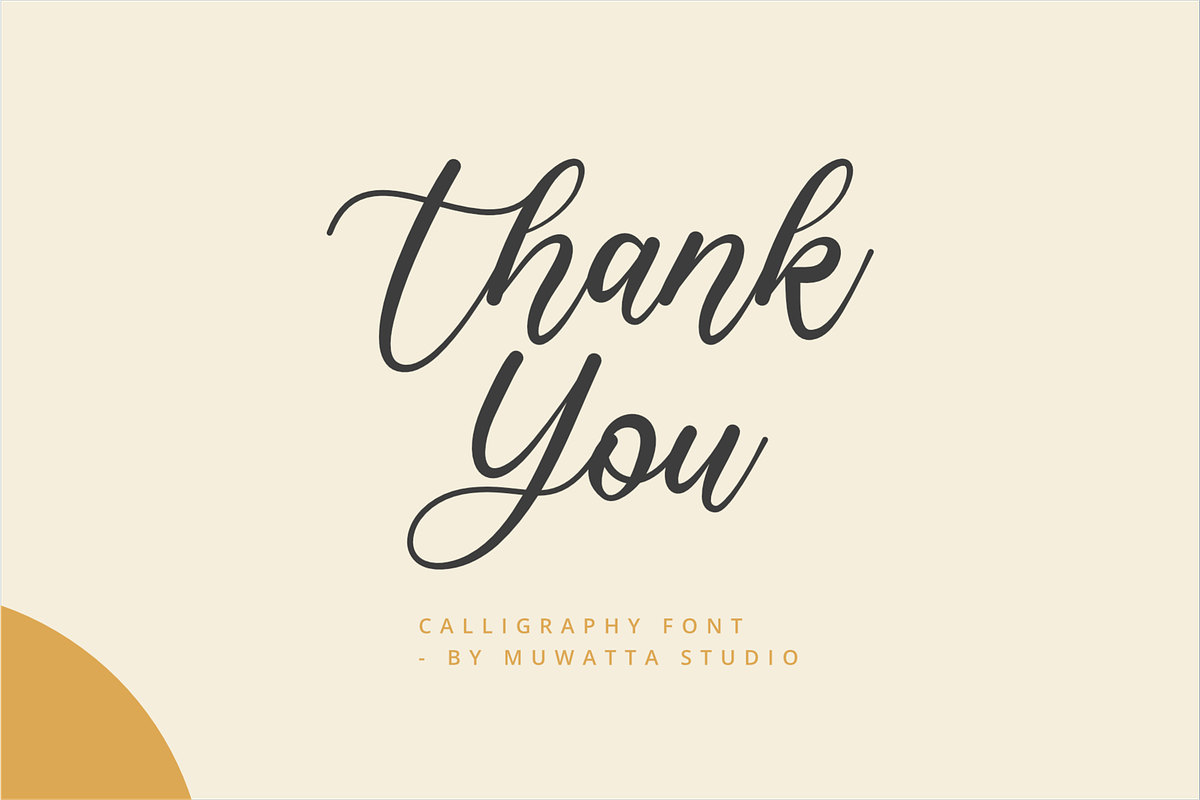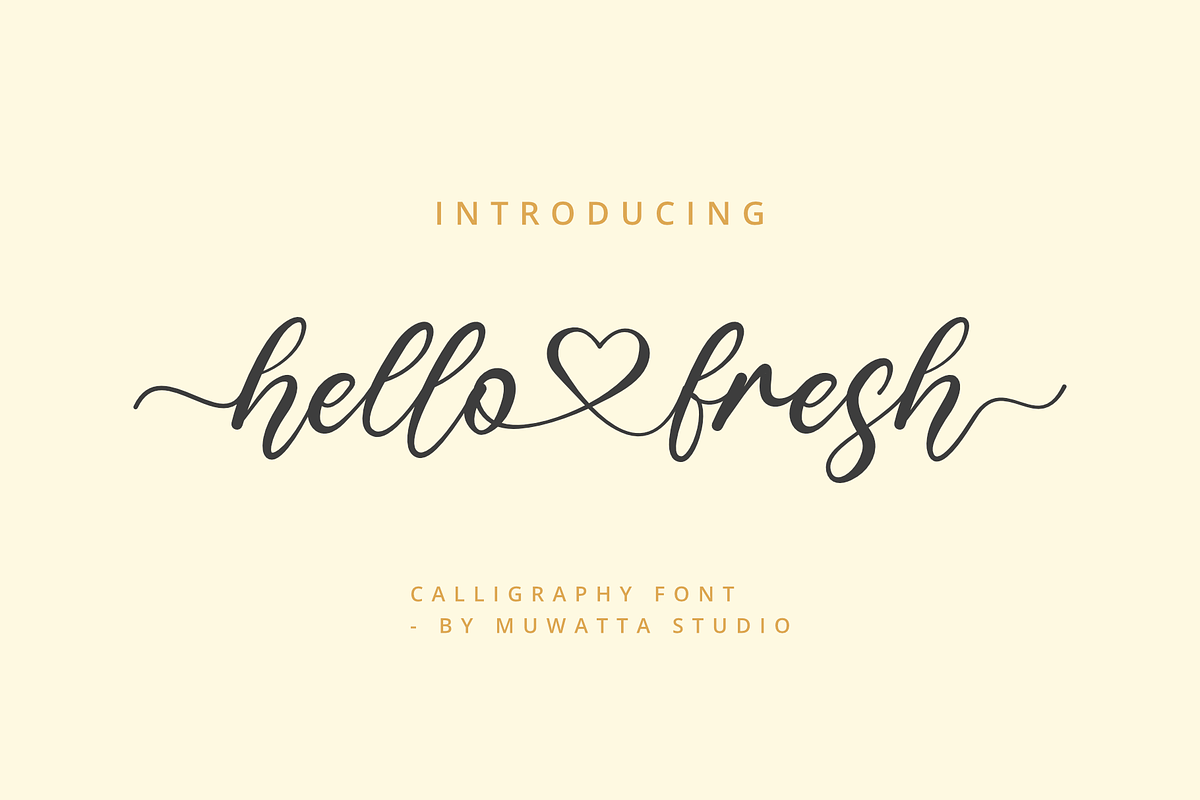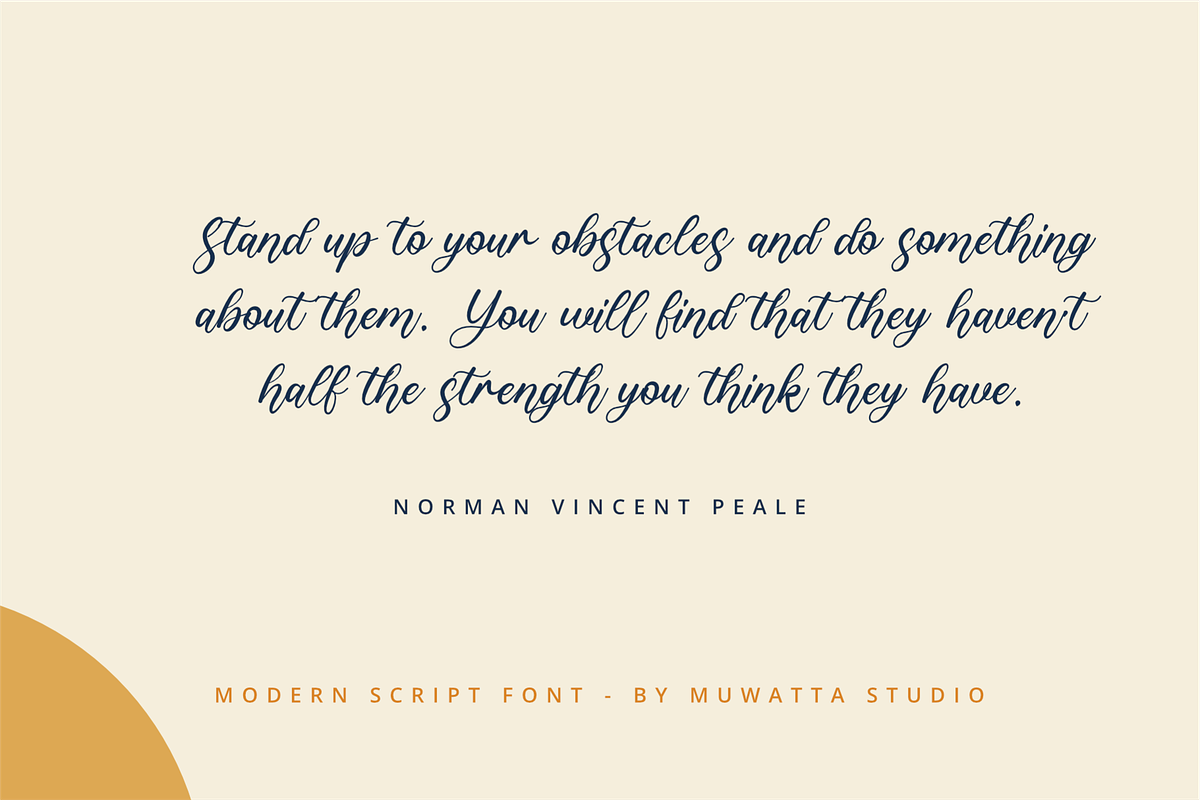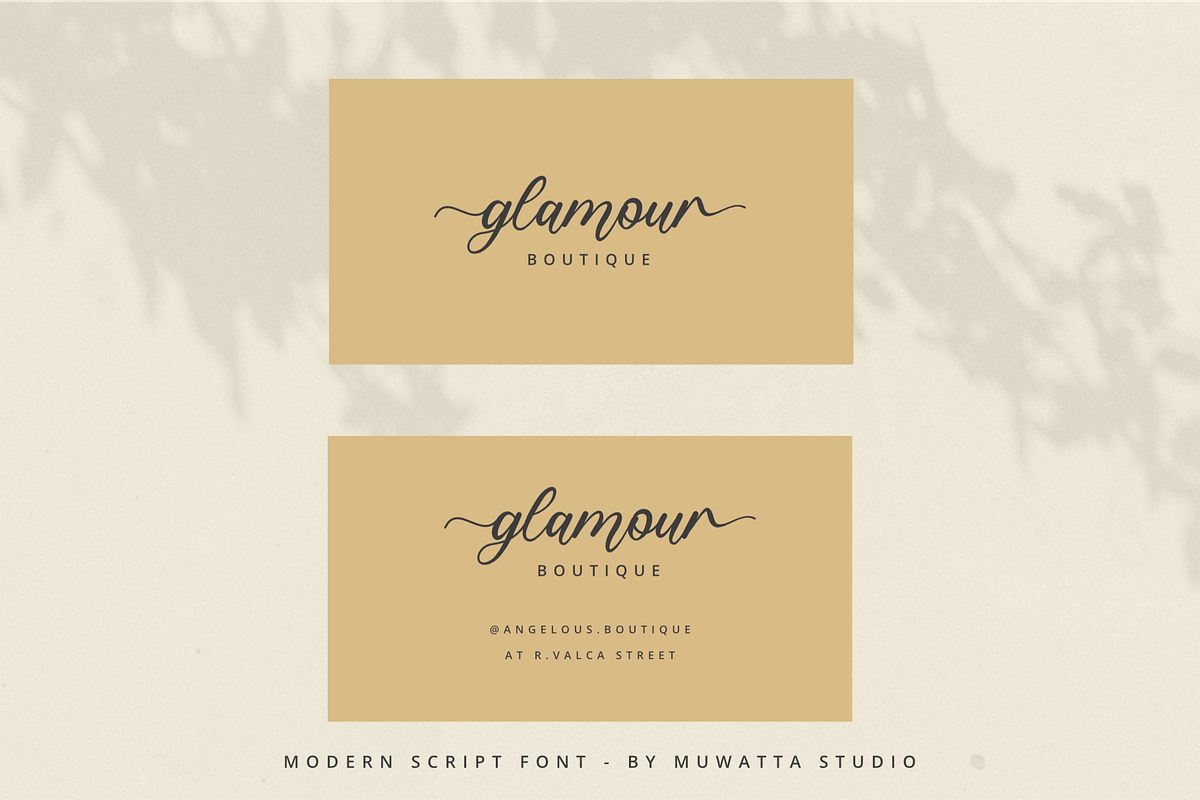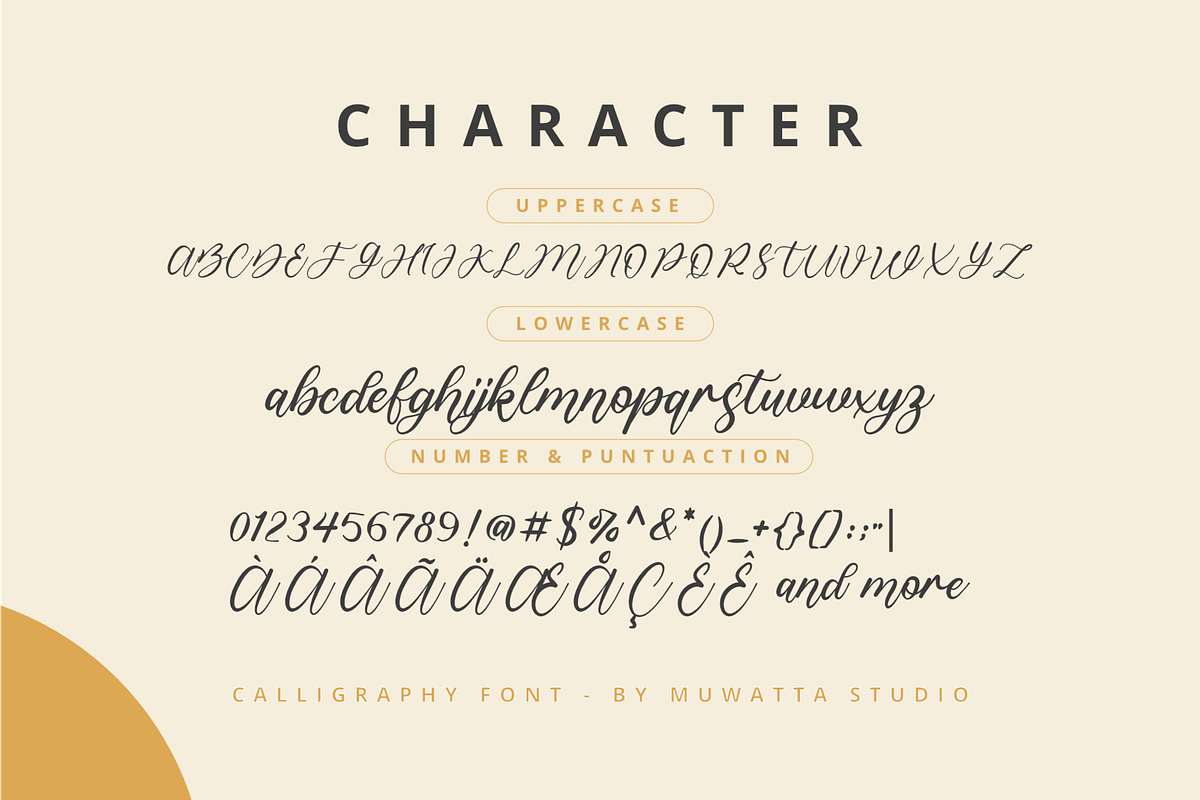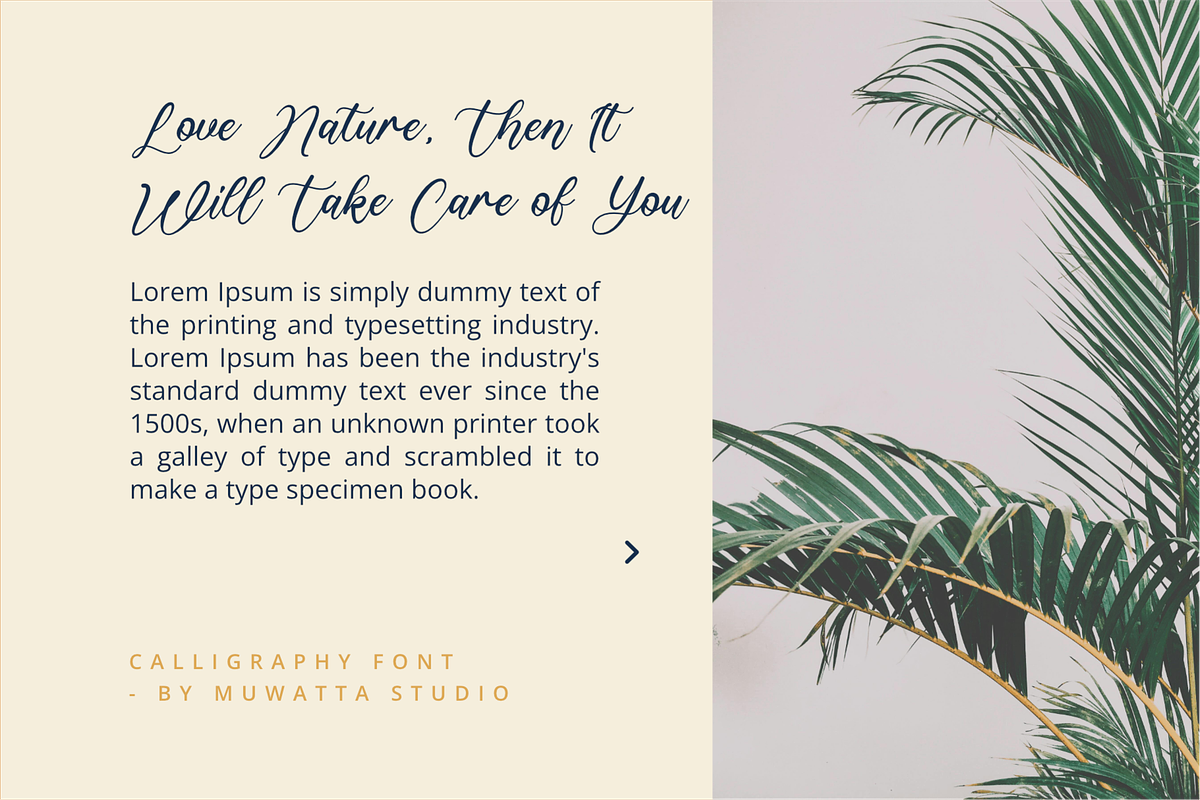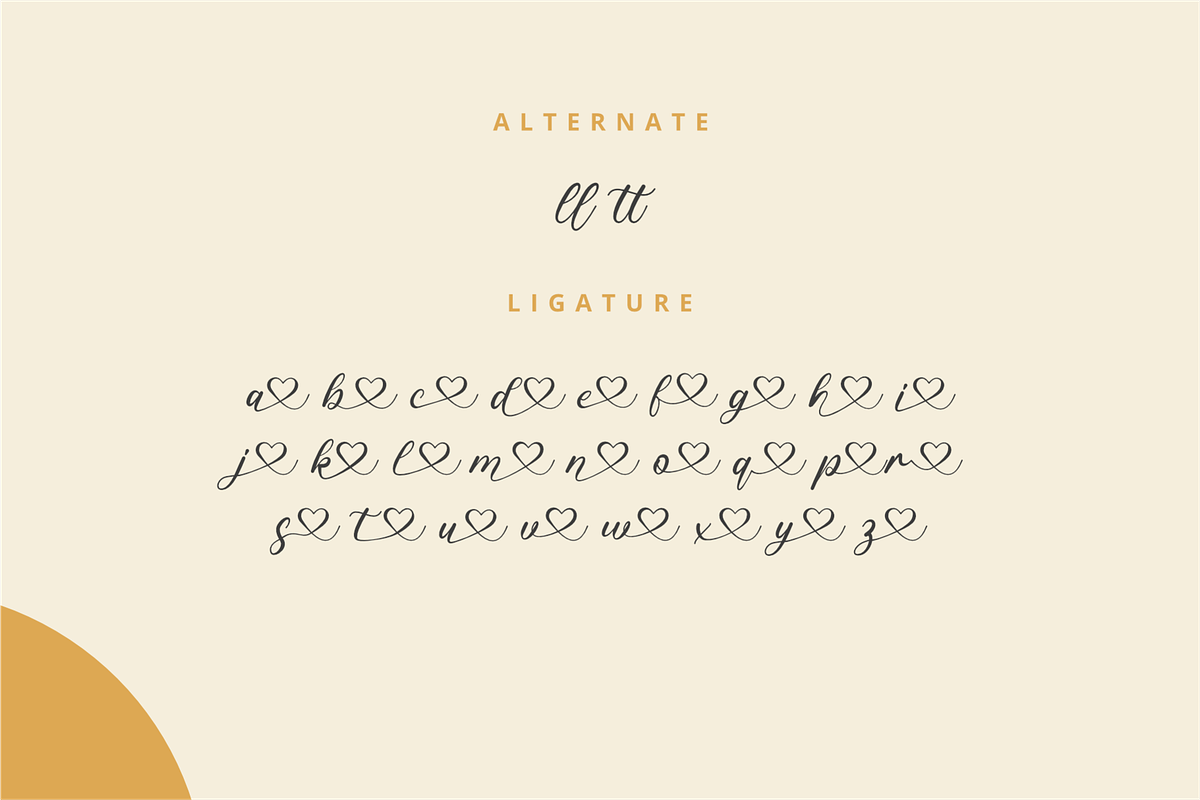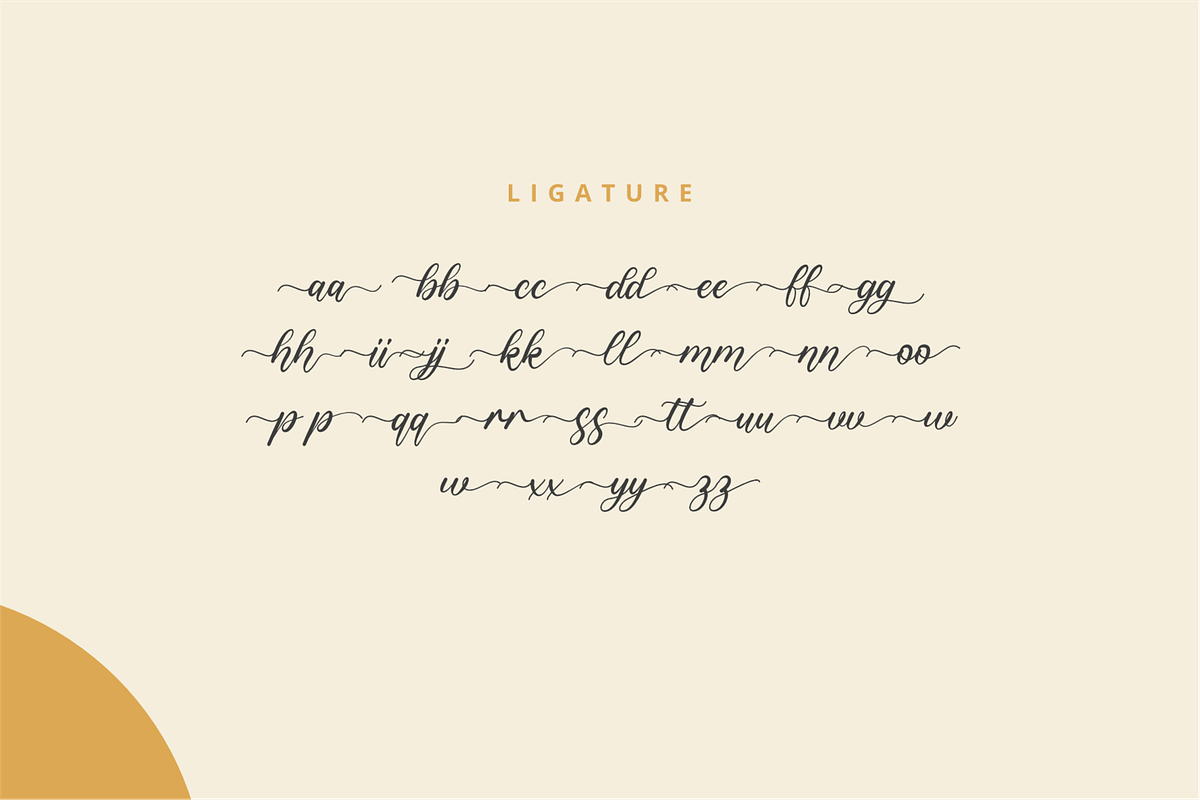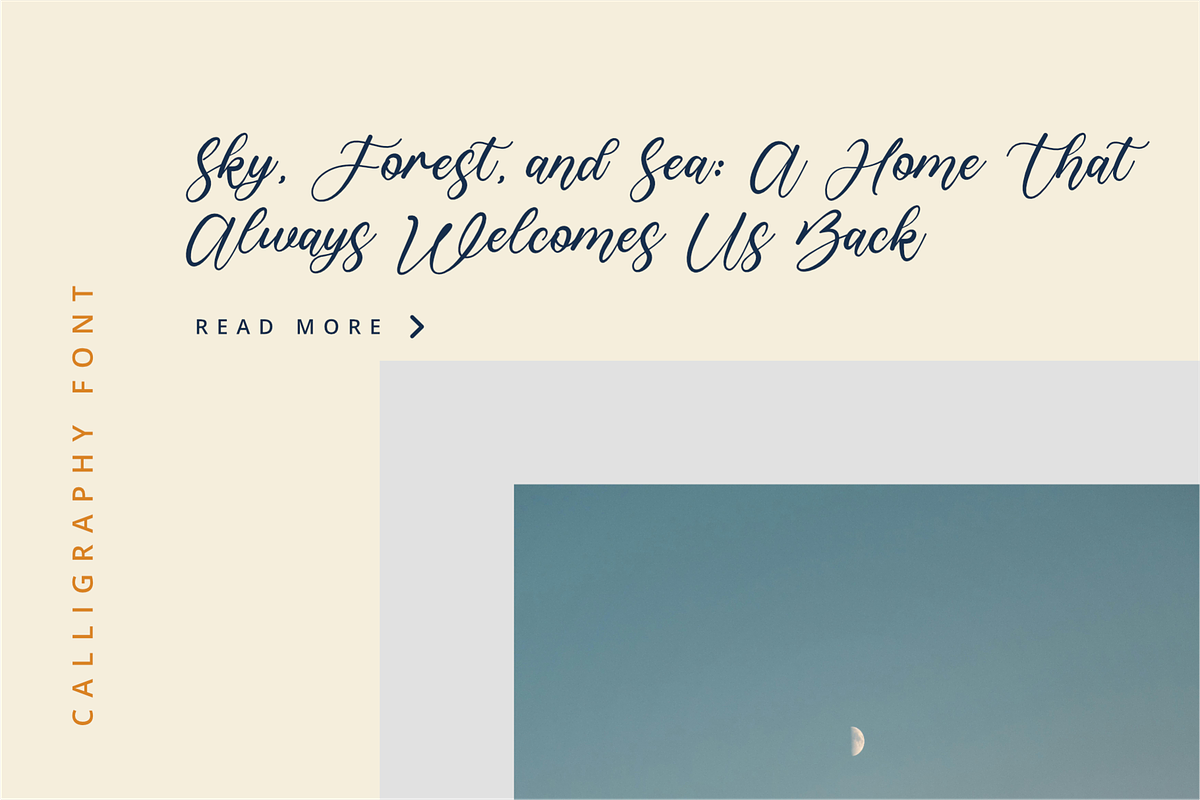
Hello Fresh - Charming Script Font
Hello Fresh is a charming script font that captivates with its unique and elegant design. This font exudes a sense of charm and sophistication, making it the perfect choice for projects that want to convey a romantic aesthetic. The Hello Fresh script font features gracefully flowing lines and carefully crafted curves, giving each character a sense of organic fluidity. The letterforms are highly detailed, with subtle strokes and swirls that add a touch of playfulness and femininity. The overall font design evokes a feeling of handcrafted beauty, reminiscent of handwritten calligraphy.
-Full alphabet with Uppercase and Lowercase A-Z for script
-Numbers for all fonts
-Punctuation and symbols for all fonts
-Alternates Lowercase script
-Ligature Lowercase script
-Multilingual support all fonts